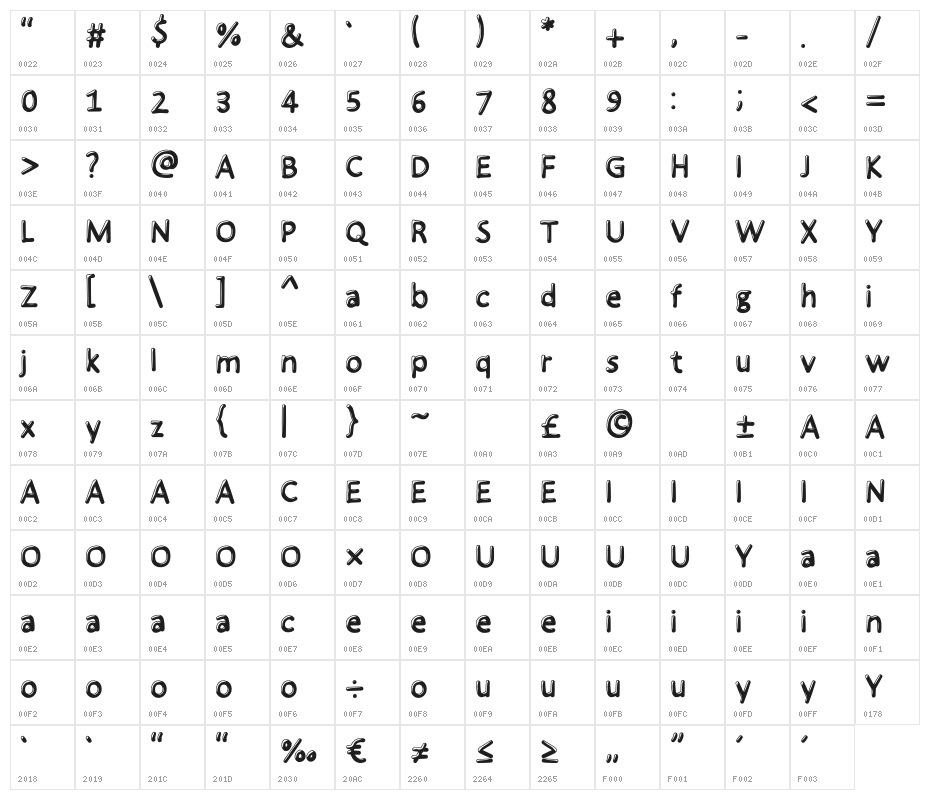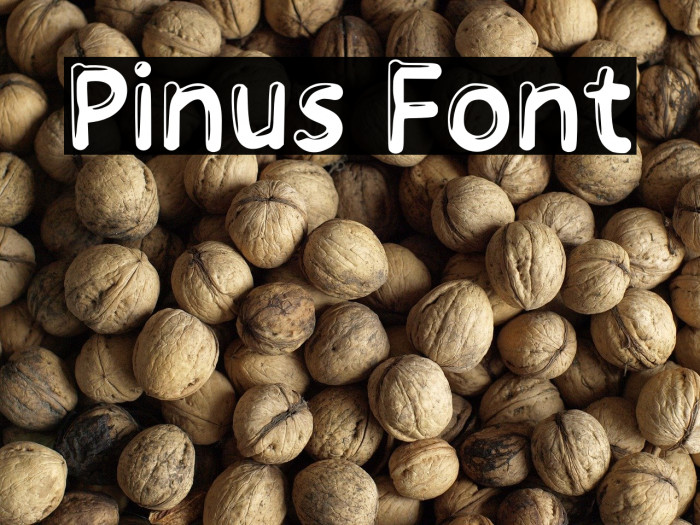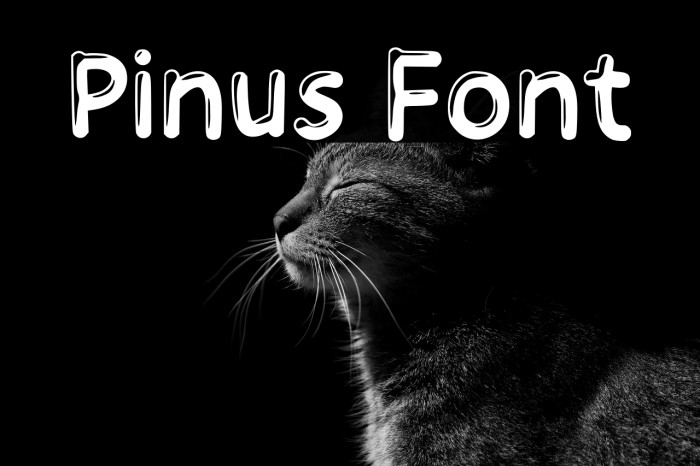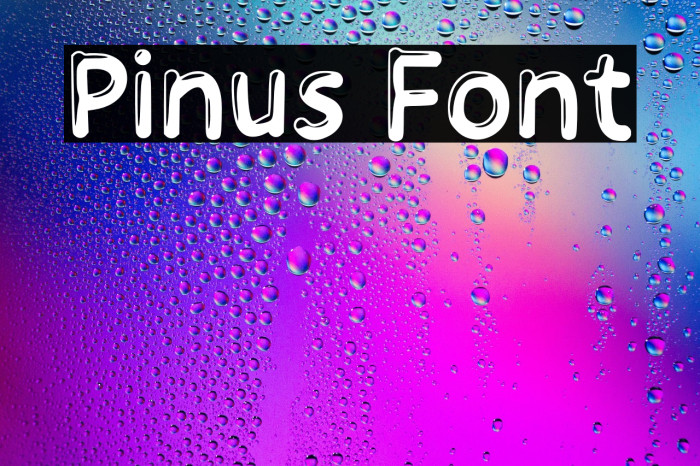
Pinus Font
Pinus Description
This font exhibits a playful and bold style, characterized by its thick, rounded strokes and slightly uneven edges that give it a hand-drawn appearance. The letters are well-defined with a consistent thickness, creating a cohesive look across both uppercase and lowercase characters. The numerals and special characters maintain the same playful aesthetic, making them suitable for a variety of creative applications. The font's unique style is both eye-catching and approachable, making it ideal for projects that require a touch of whimsy and creativity.
| Overall Style | Playful, Creative |
| Proposed Projects | Ideal for children's books, playful branding, posters, and creative invitations. |